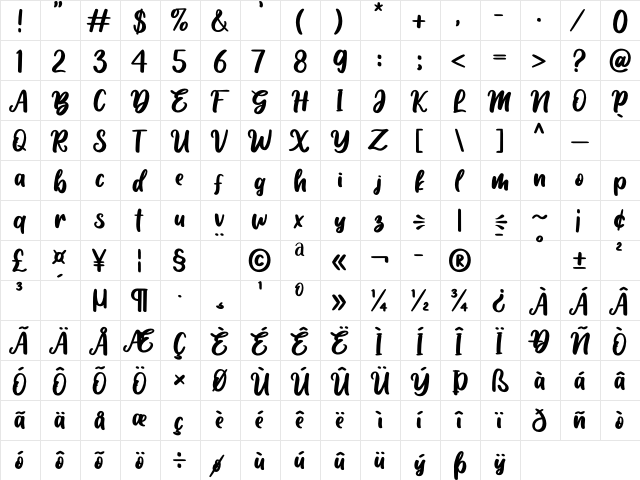
Hello Sunshine - Personal Use Regular
| Designer | nailetter / Sunarti |
Design Context for Hello Sunshine - Personal Use Typeface
Hello Sunshine - Personal Use is a composed and adaptable typeface that performs quietly and consistently across a wide range of design contexts.